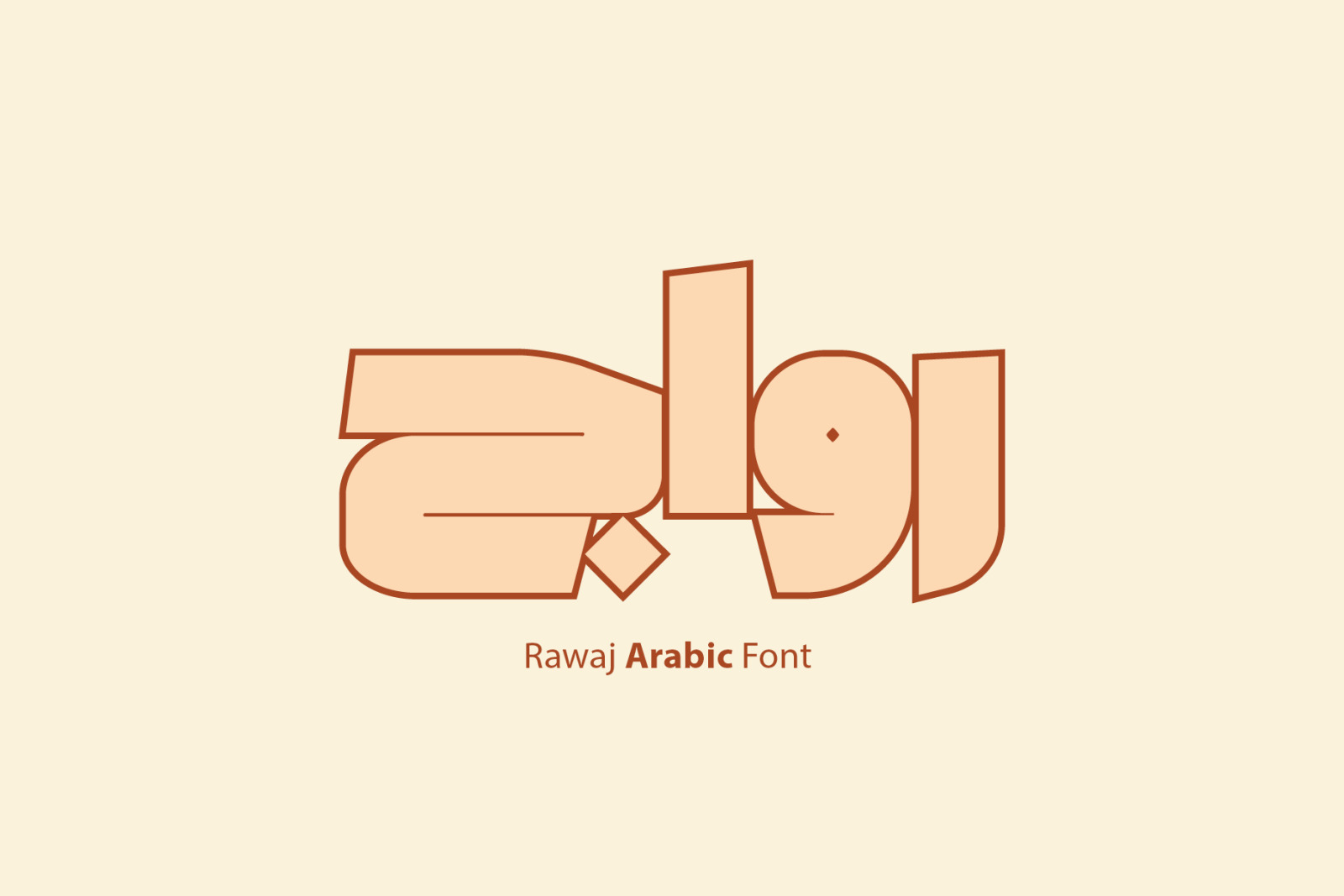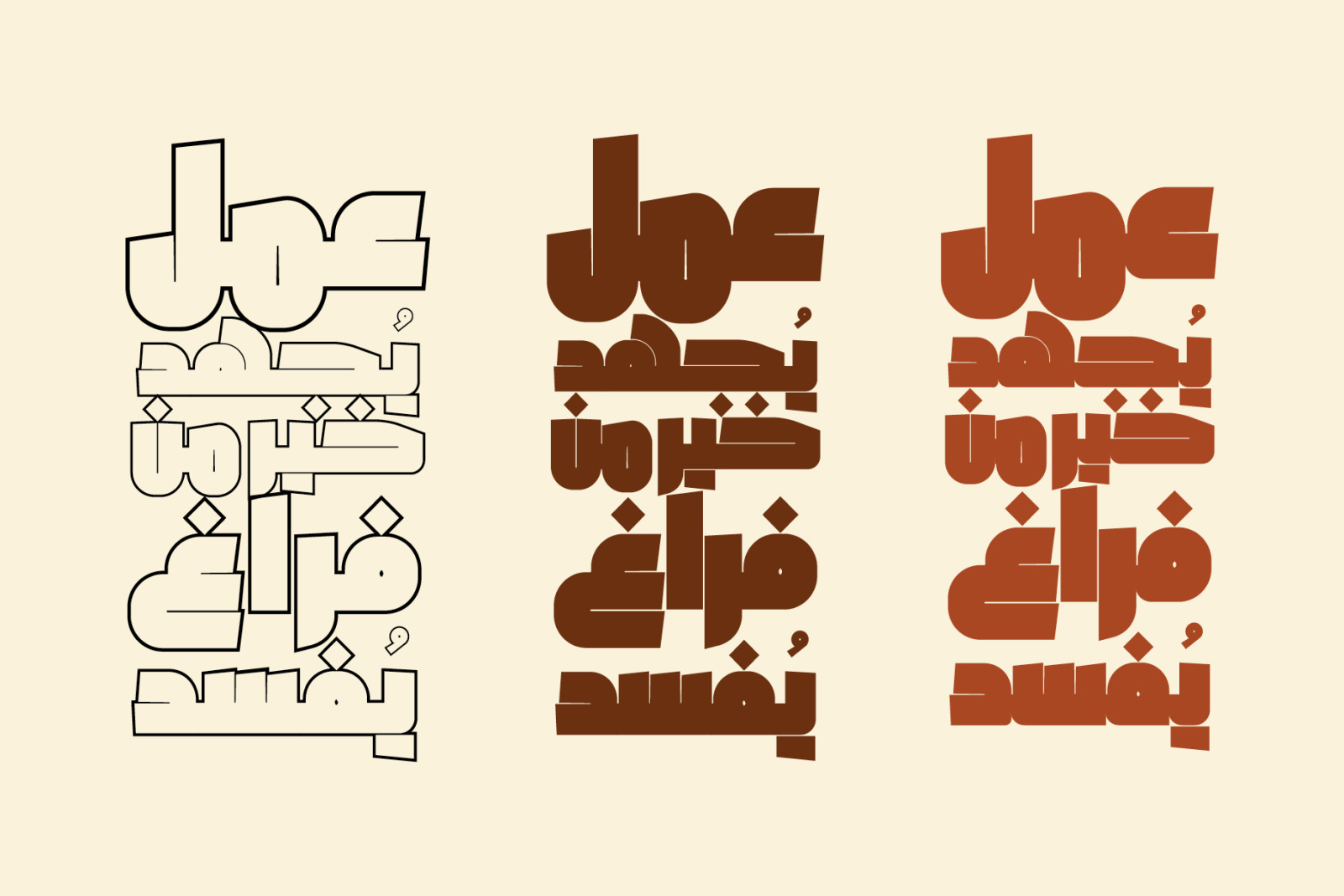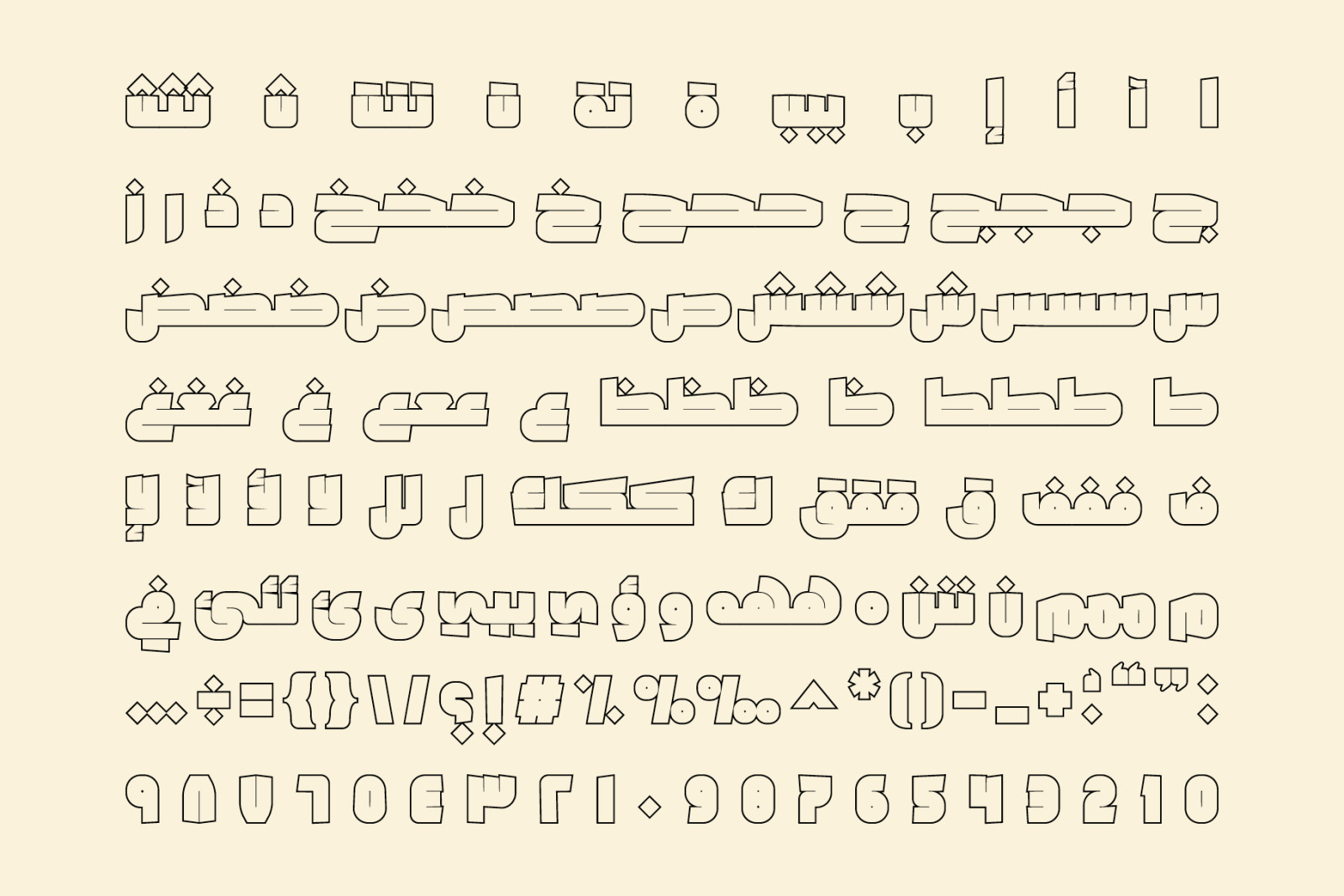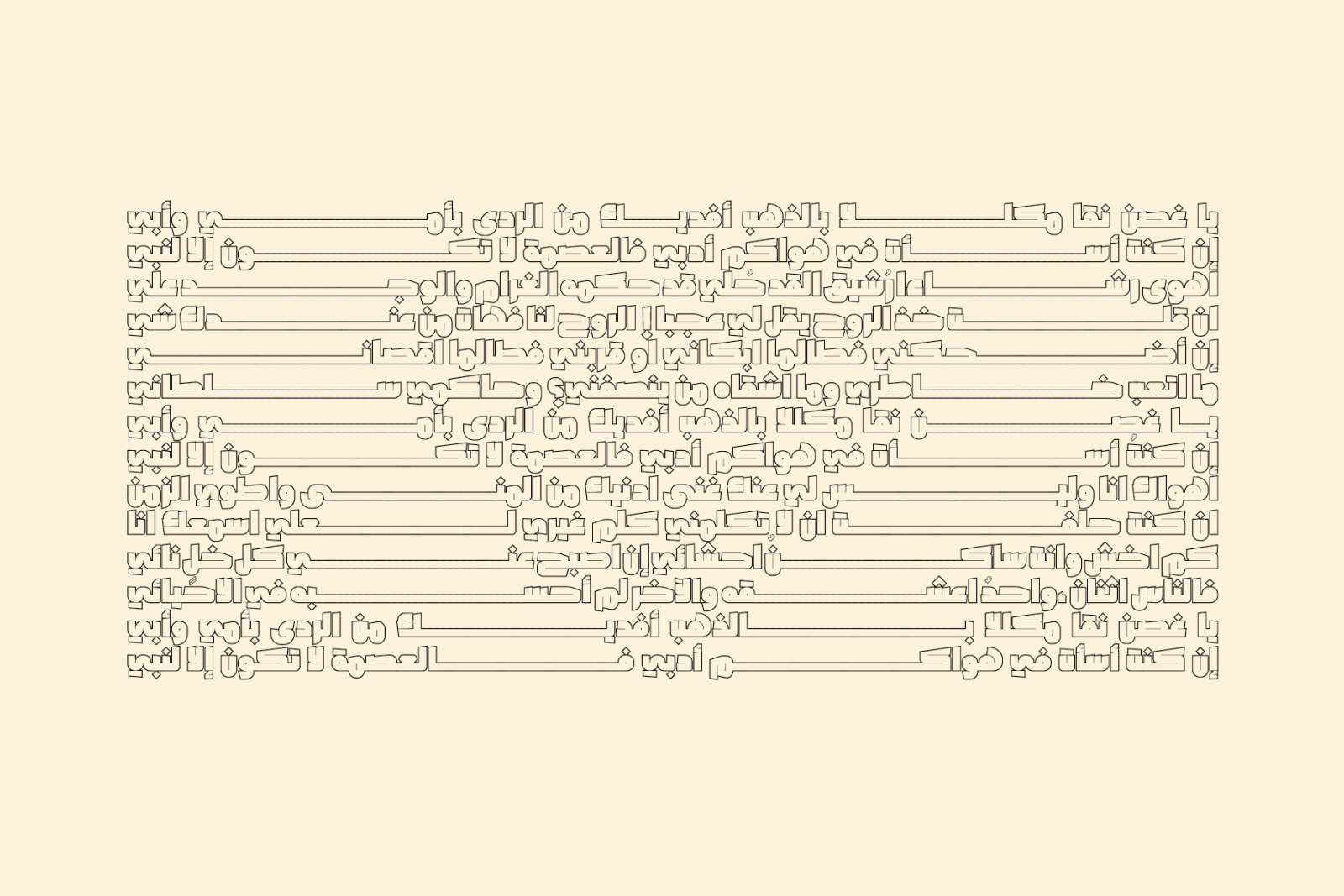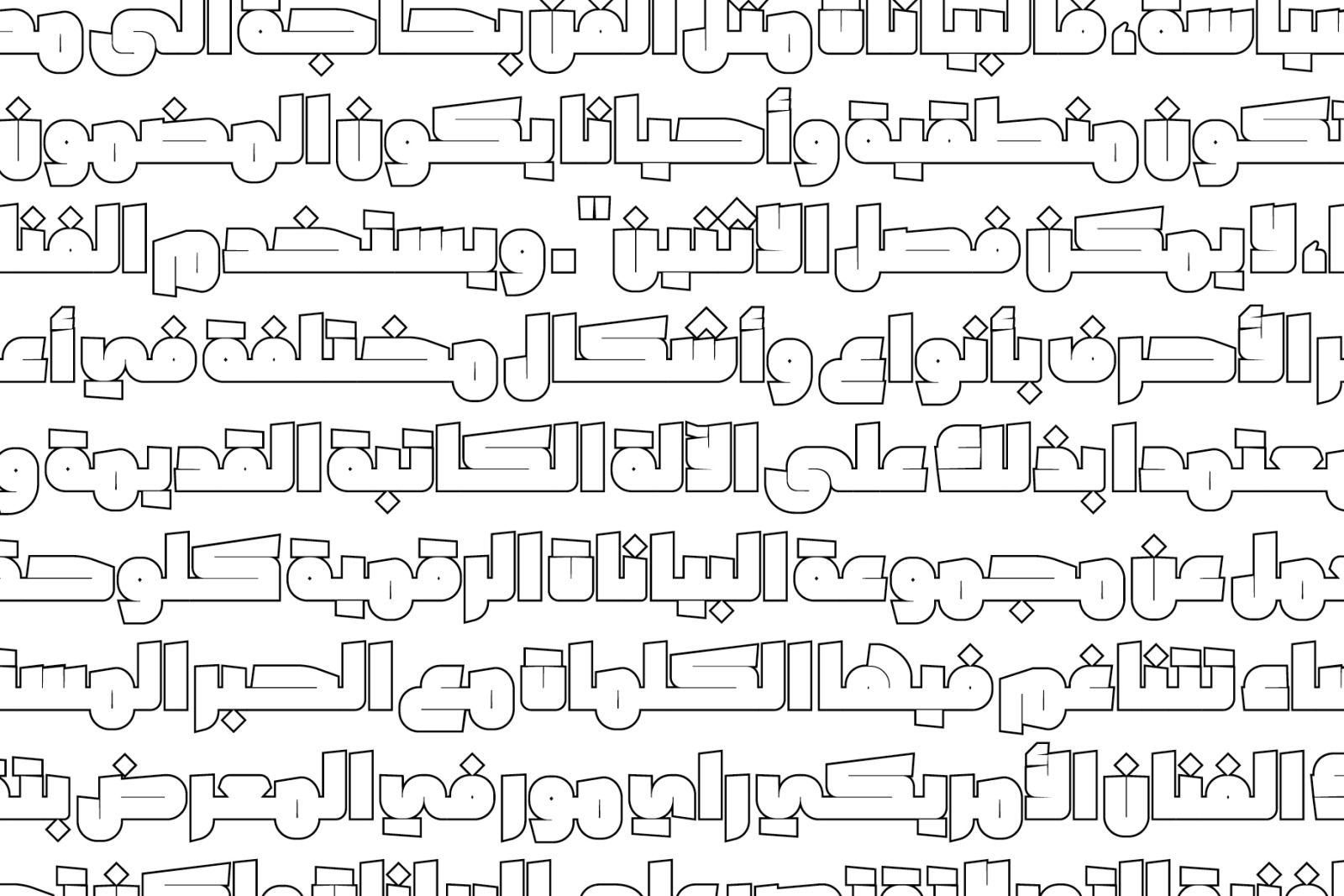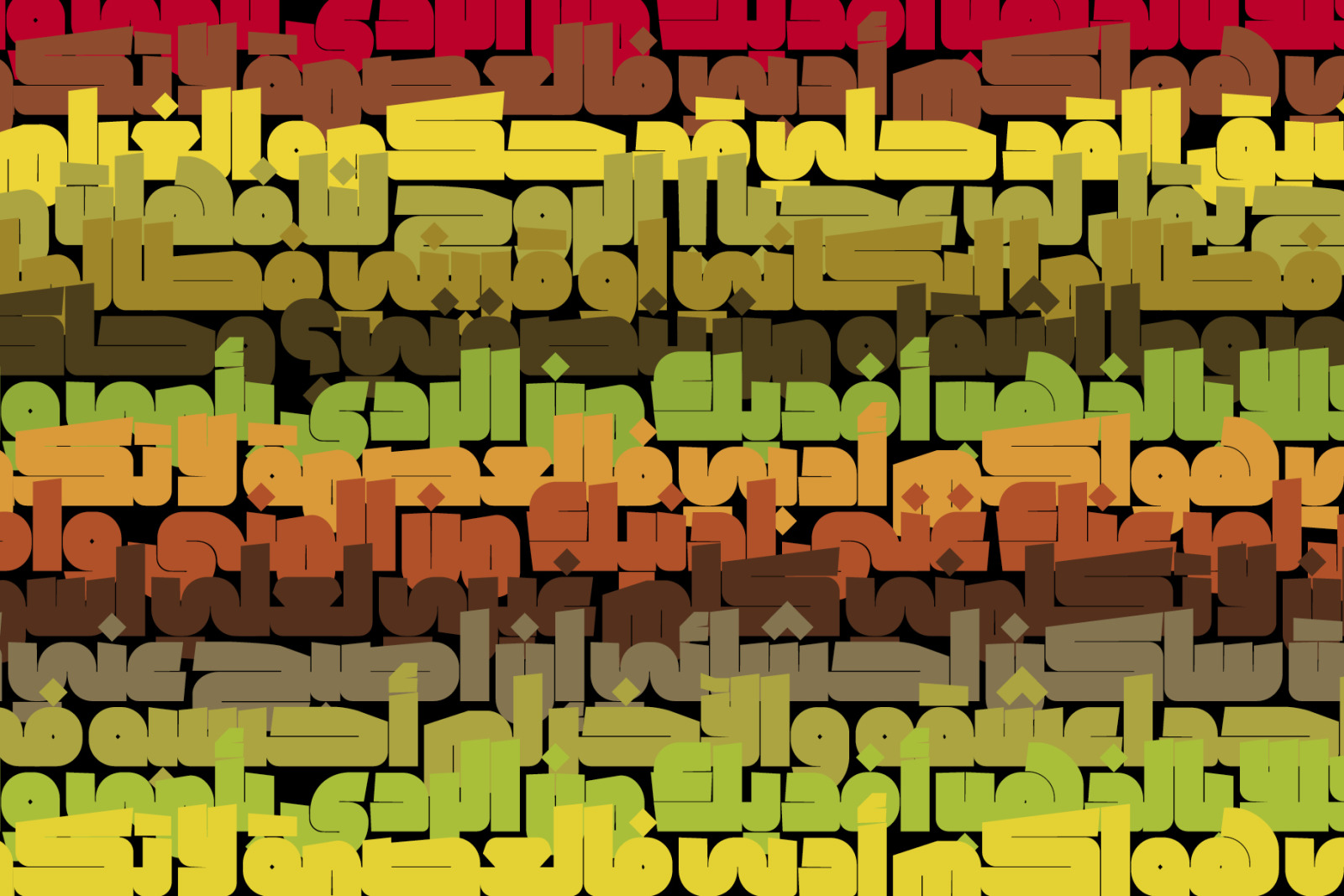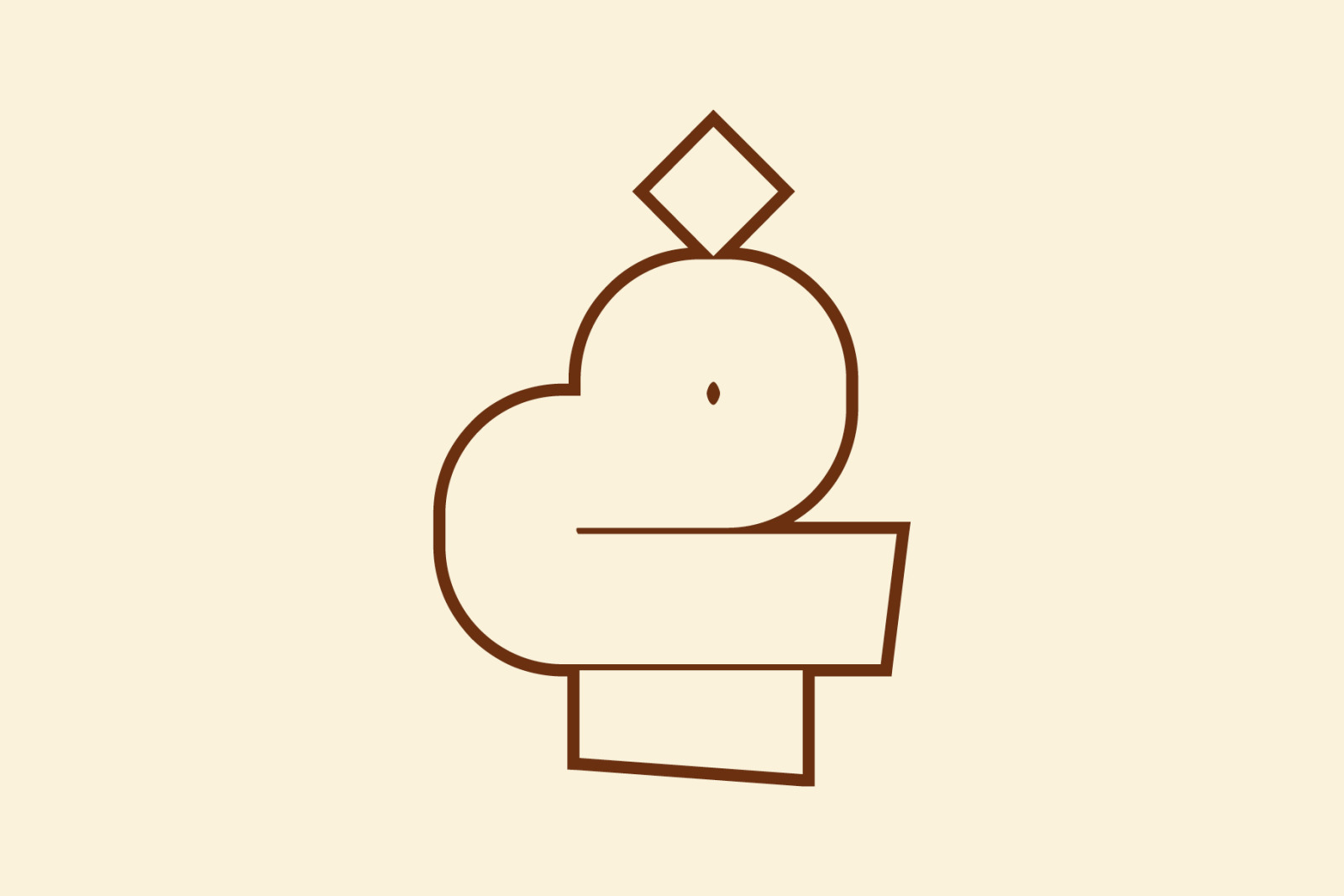
Rawaj - Arabic Font
Rawaj is an Arabic display font. Its letterform design combines visual features from the Kufic Ruqu’ah with Naskh handwriting styles. Rawaj suits various range of creative titling including web design, advertising and print. The font family consists of two styles (Black/Heavy and Outlined) and it supports Windows, Mac OS and mobile applications.